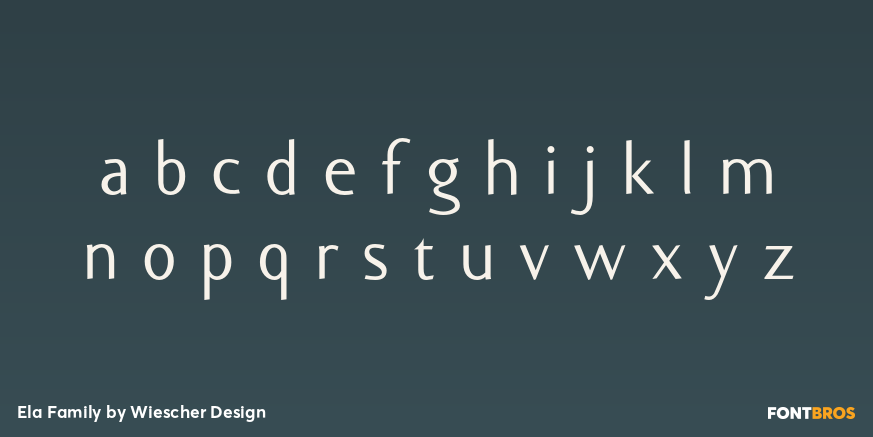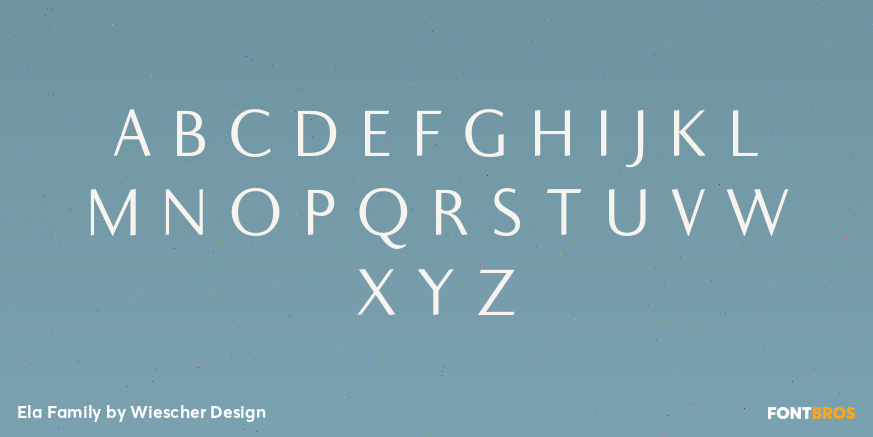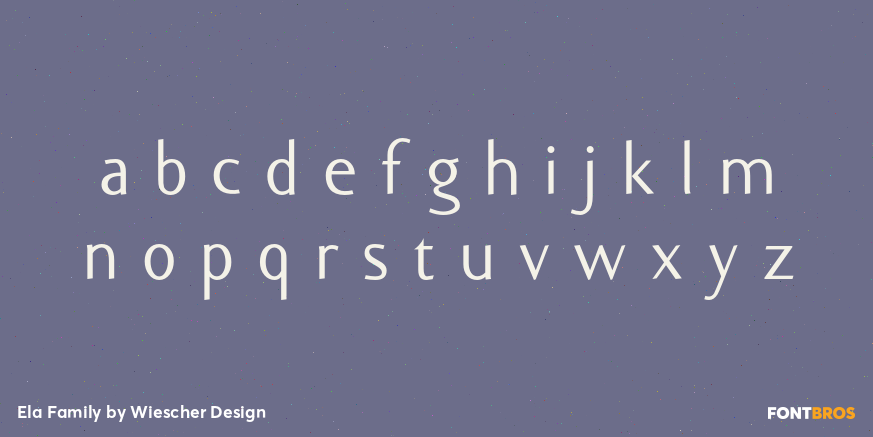
Ela Family
Font Family by Wiescher Design
Ela is the typeface I originally designed for the business of my second wife and mother of my two sons, her name is